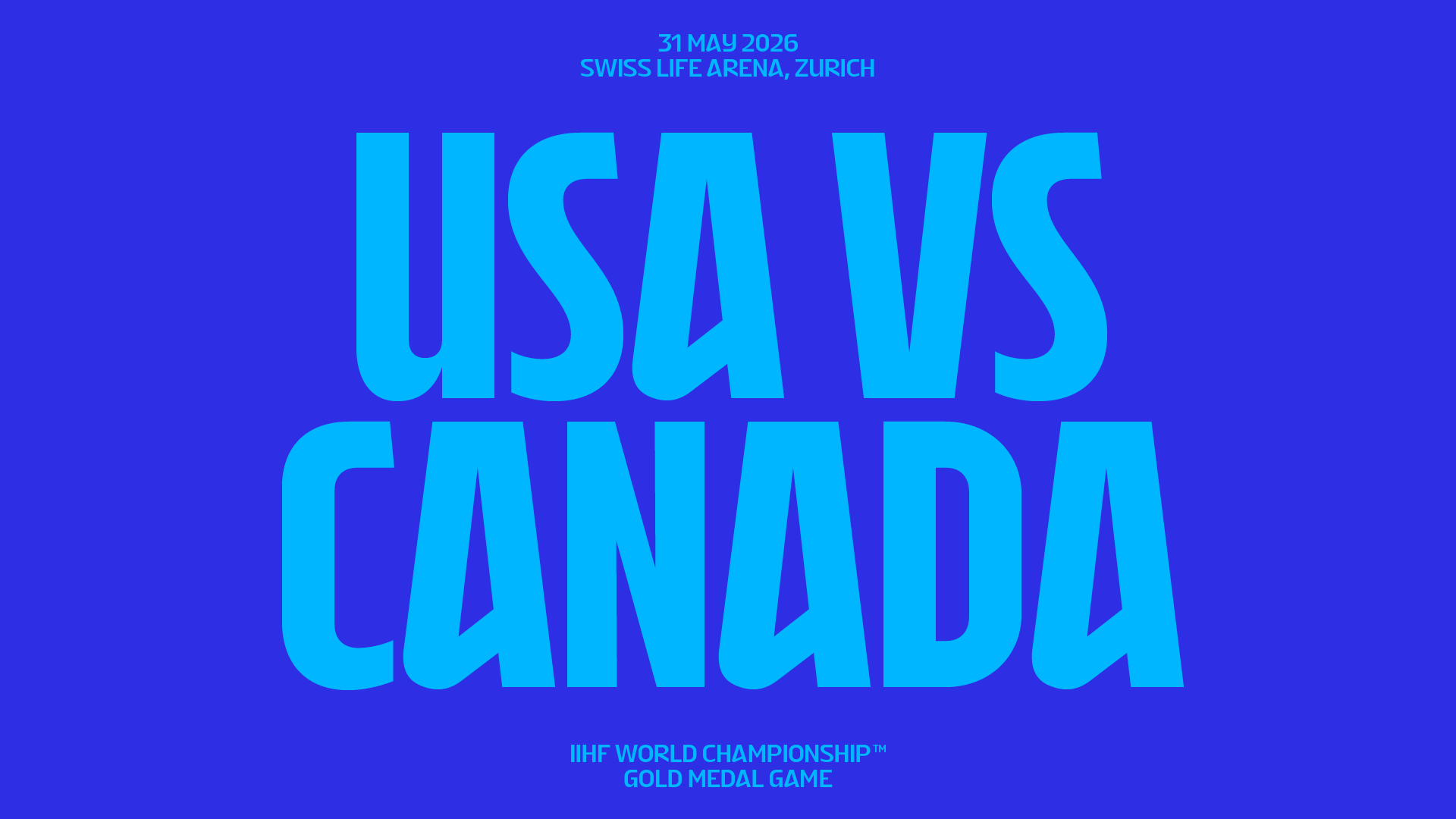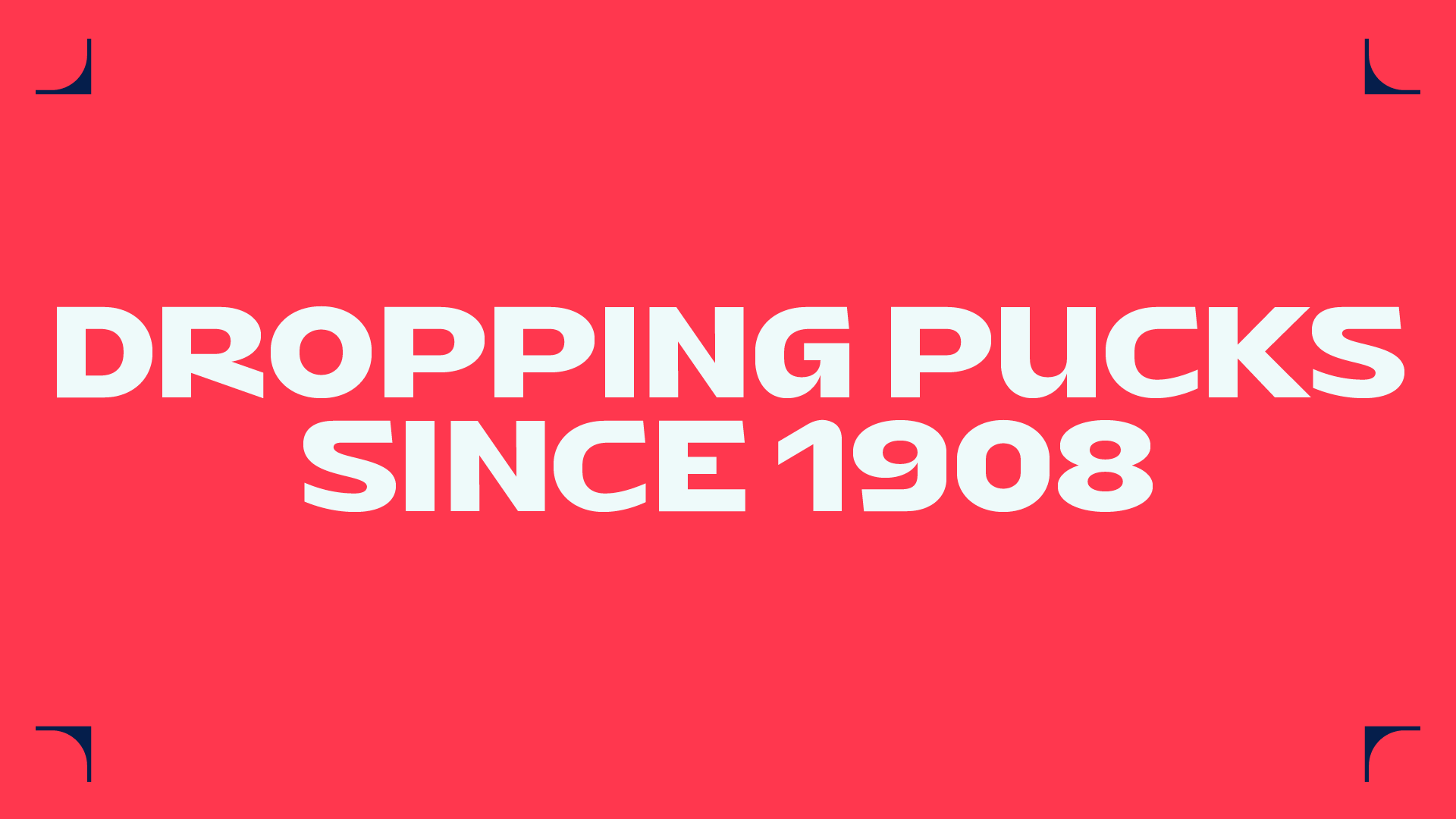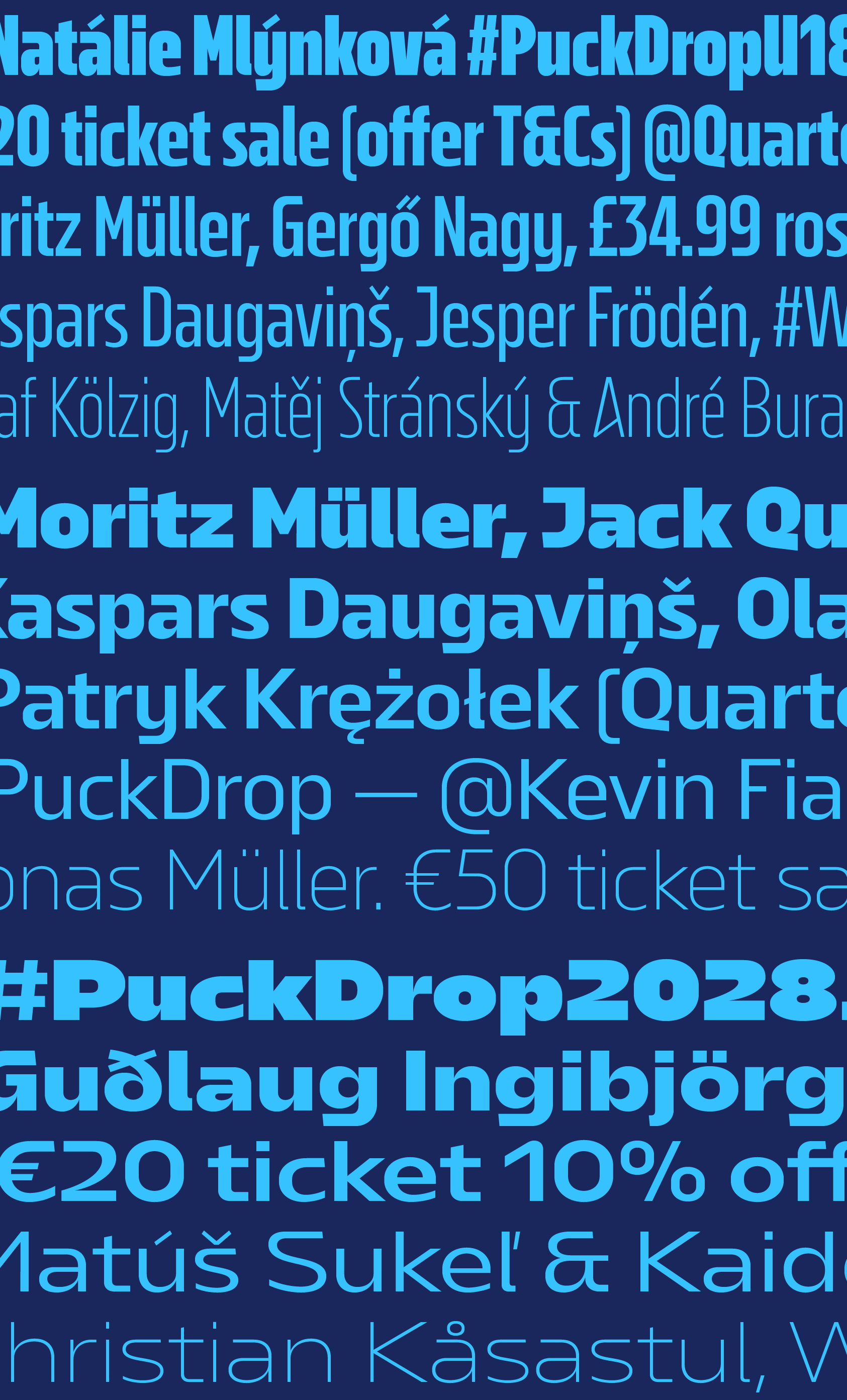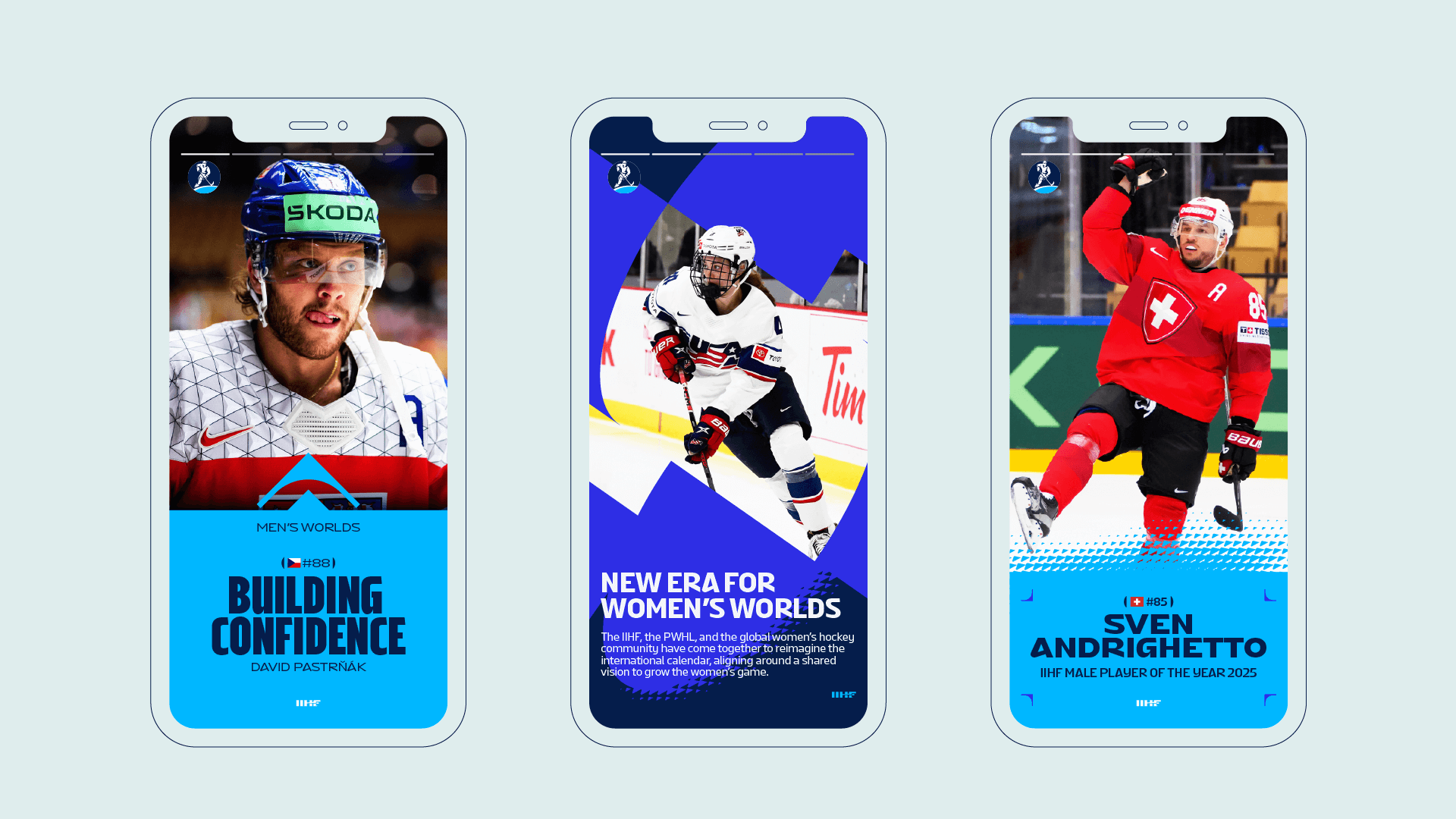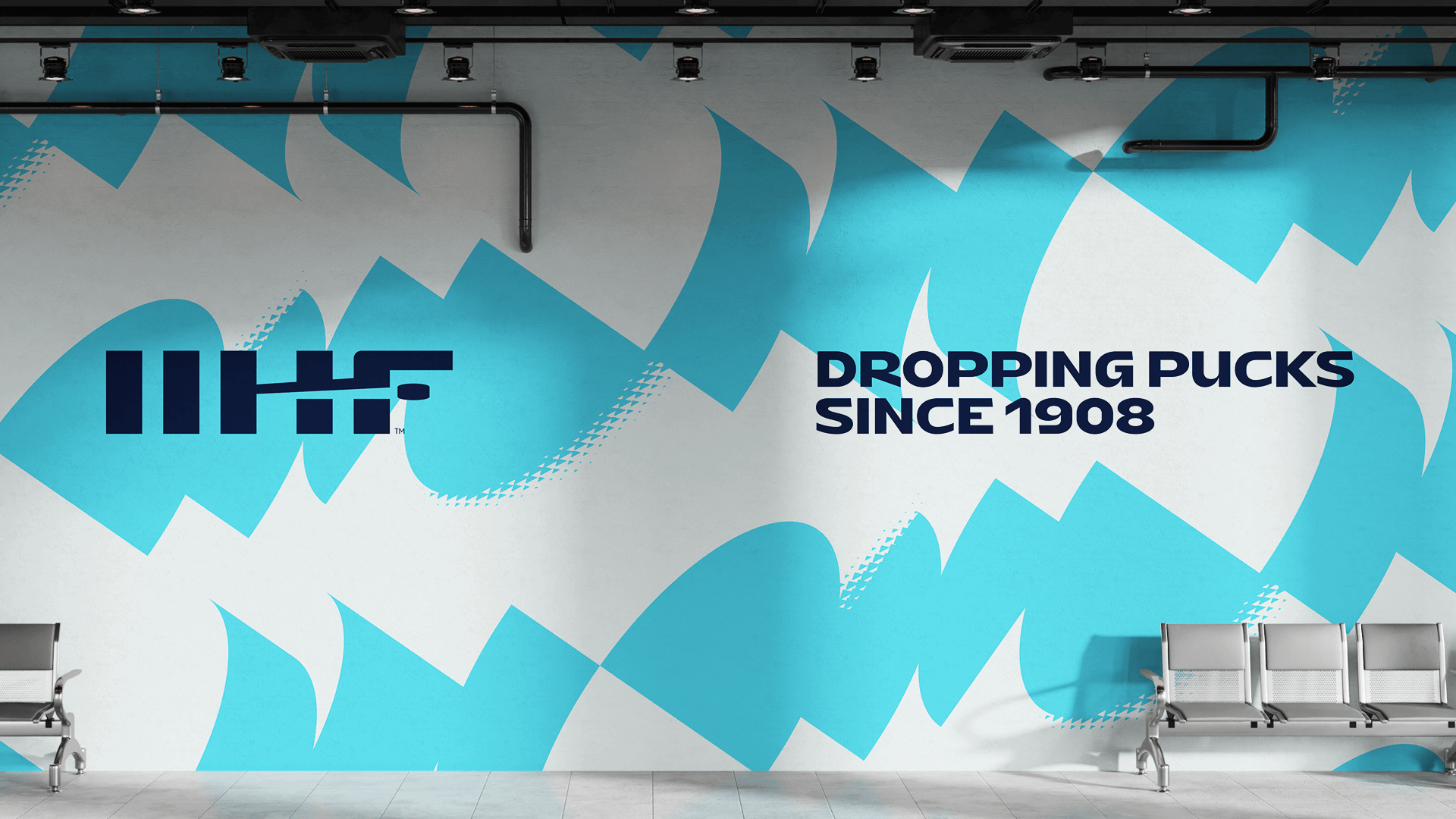
Bespoke typeface
International Ice Hockey Federation custom font
Back in 2025, we created a new custom typeface for the International Ice Hockey Federation (IIHF) brand refresh.
The design is built to reflect the speed of the game, drawing direct inspiration from ice hockey by blending the precise lines of the rink with the sharp changes of direction and rapid motion that define the sport.
Working closely with TwelfthMan, we developed a type system of five weights across three widths. This bespoke type family is tailored for everything—from official documentation to social media, and from impactful headlines to long paragraphs, giving the federation an ownable visual asset with a highly adaptable voice.